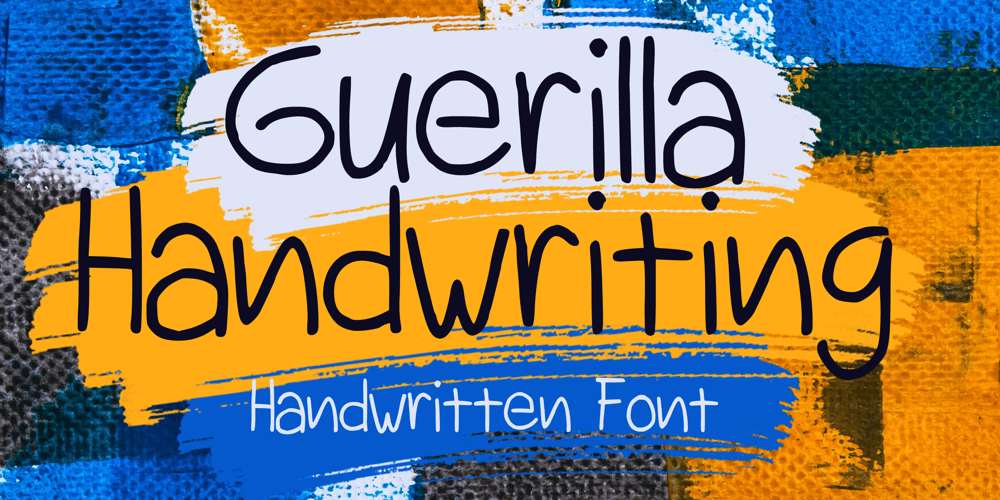
Guerilla Handwriting Font Family was designed by Gabriel Valentinus and published by Mvmet. Guerilla Handwriting contains 1 styles and family package options. Guerilla Handwriting is a versatile thin handwritten font you can use for anything. It will elevate a wide range of design projects to the highest level. You can use this font for many design ideas such as stickers, t-shirt designs, amazing logo designs, magazine or book covers, comics, cartoon drawings, and many more. This font will add a super cool touch to your designs!